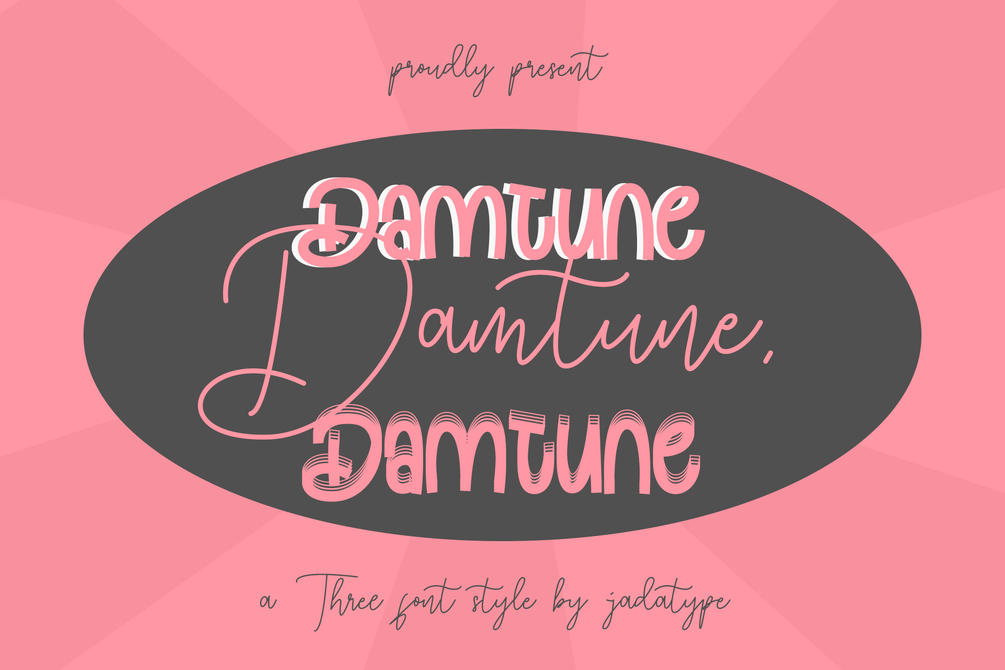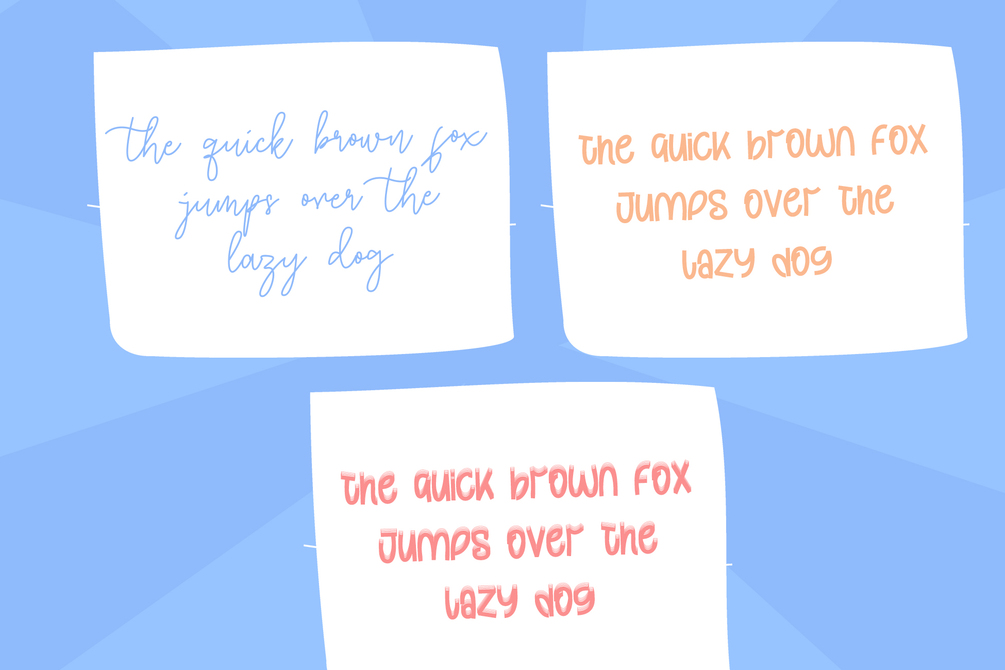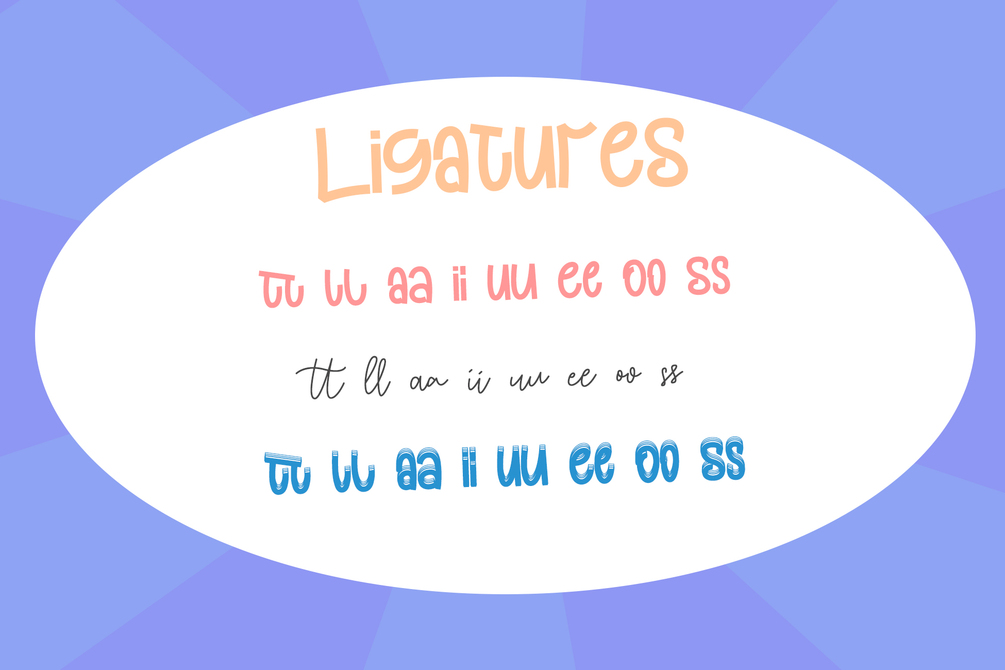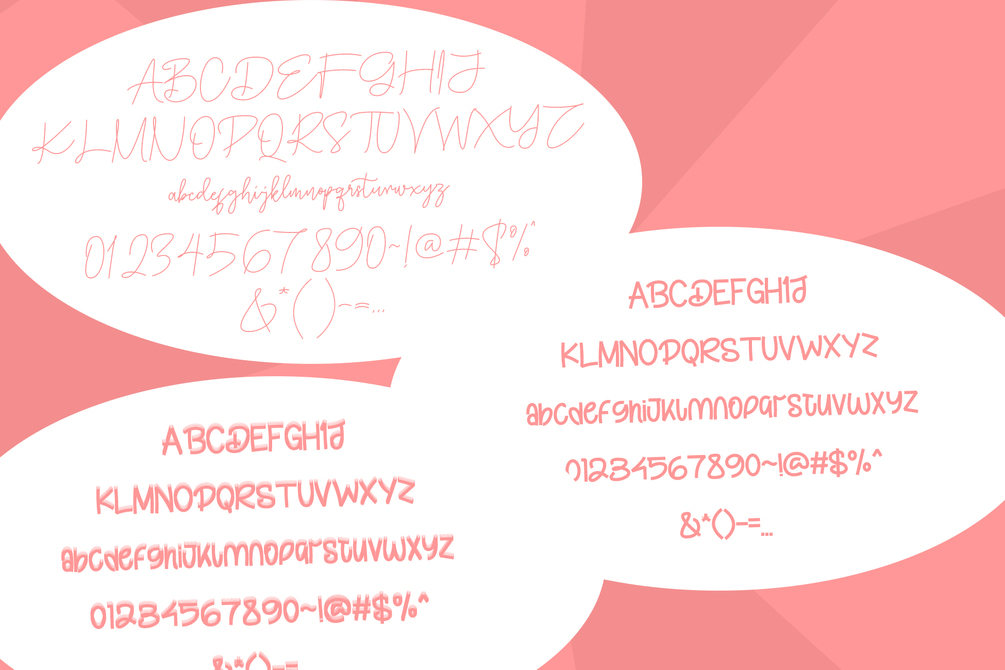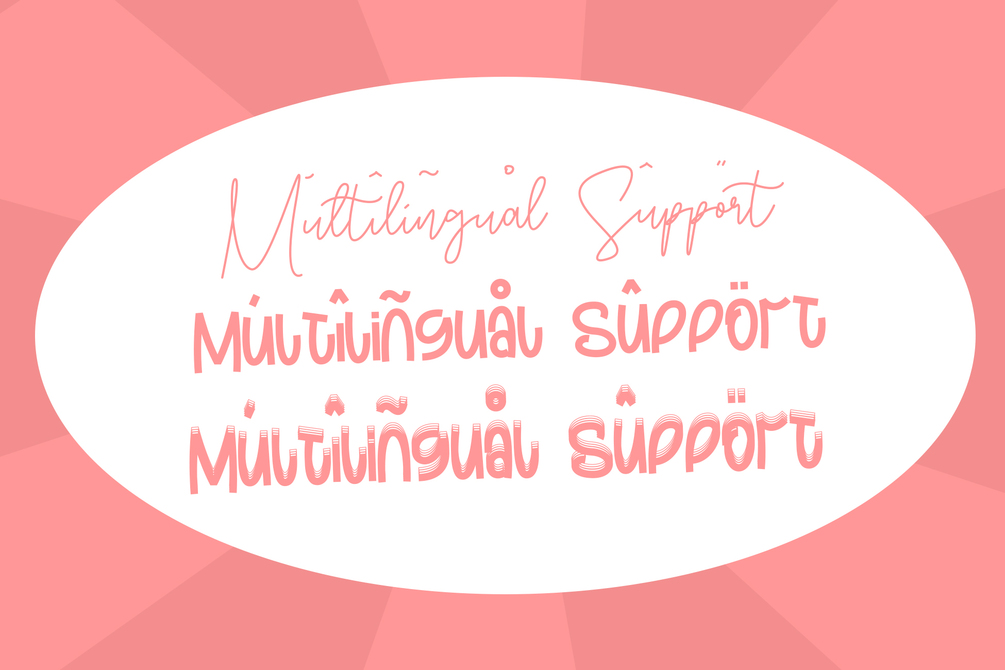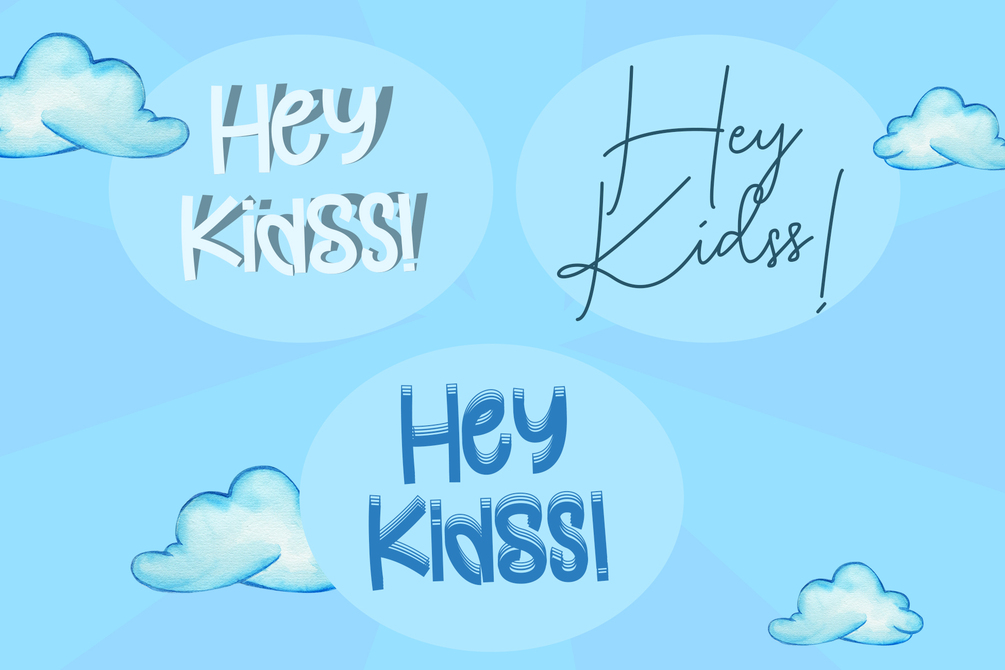
Damtune Font
Damtune is font that comes in pairs of display & script with a playful style. suitable for social media, events, crafts, t-shirt design, and so on. contains standard English letters, numbers, punctuation, alternates, and several accents that support multilingualism.